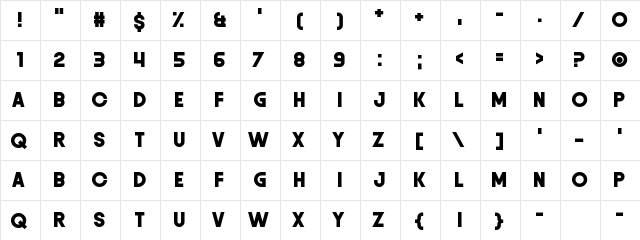
Feeding a Moment Regular
| Designer | NAL |
Design Context for Feeding a Moment Typeface
Feeding a Moment takes a measured approach to typography — its balanced proportions and neutral character make it a reliable workhorse for both digital and print work.